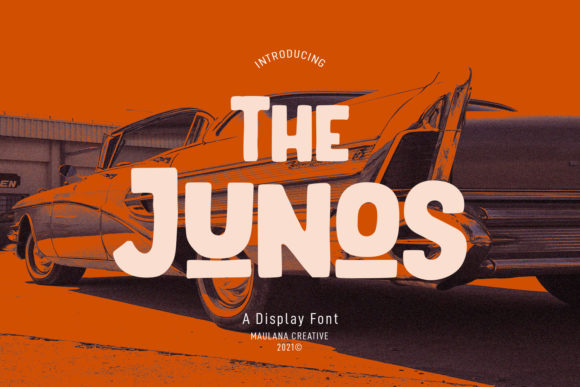
Immerse yourself in the timeless allure of The Junos Font, a captivating display typeface that evokes the golden era of typography. With its bold, vintage-inspired letterforms, The Junos exudes a touch of nostalgia and sophistication that's sure to turn heads.
Beyond its aesthetic charm, The Junos Font is meticulously crafted for exceptional readability, making it the perfect choice for small text sizes. Whether you're crafting website content, designing brochures, or creating social media graphics, The Junos ensures that your words will be effortlessly legible, leaving a lasting impression on your audience.
Unlock your creativity with The Junos Font and elevate your designs to new heights. Its timeless style and unparalleled clarity make it an indispensable tool for any designer. Dive into the world of The Junos Font today and let its vintage charm and readability captivate your audience.